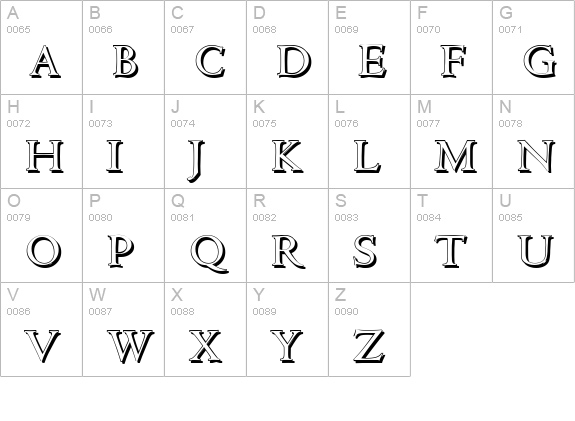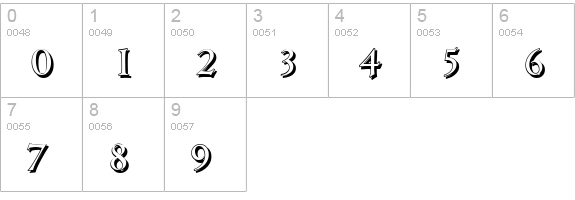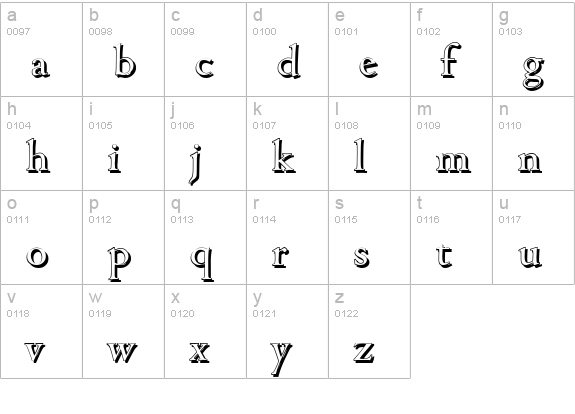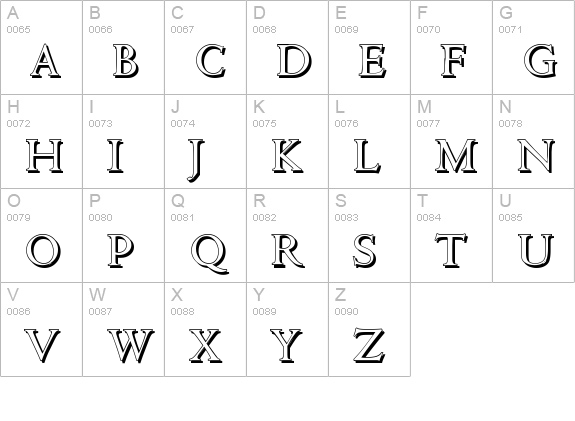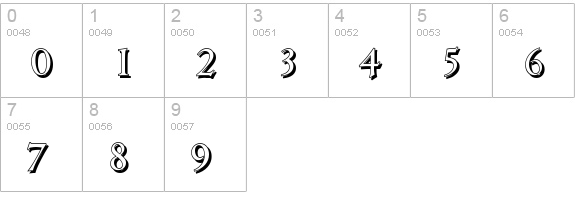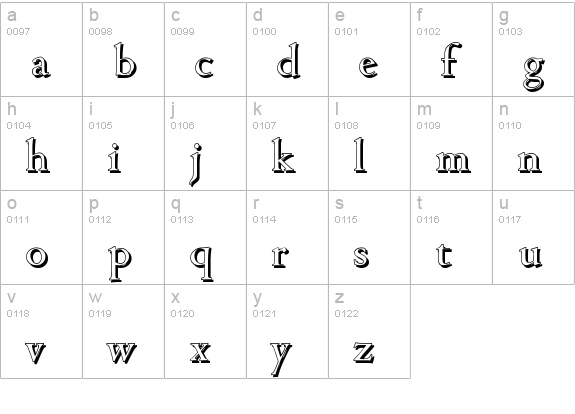
CambridgeShadow-Regular is the standard, neutral variant in the CambridgeShadow typeface family \xE2\x80\x94 well suited to general body text, paragraphs, and standard typographic work.
CambridgeShadow-Regular font is a stylish and elegant typeface that exudes sophistication and charm. With its unique shadow effect, this font adds a touch of depth and dimension to any design project. Perfect for headings, logos, invitations, and more, CambridgeShadow-Regular will make your text stand out and leave a lasting impression. Best of all, CambridgeShadow-Regular is available for free download at FontsMarket.com. You can easily access this stunning font and use it in your personal and commercial projects without any cost. Don't miss out on the opportunity to enhance your designs with the beauty of CambridgeShadow-Regular font. Download it today and elevate your typography game to the next level!